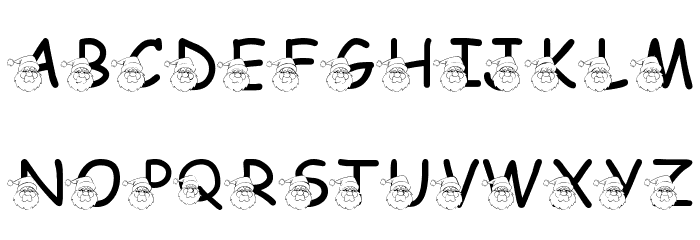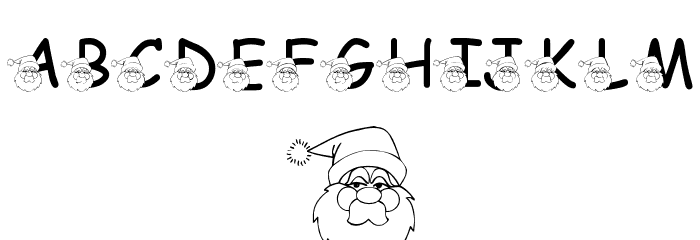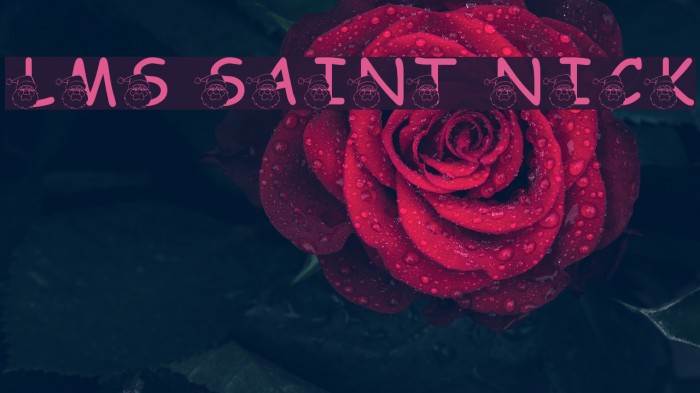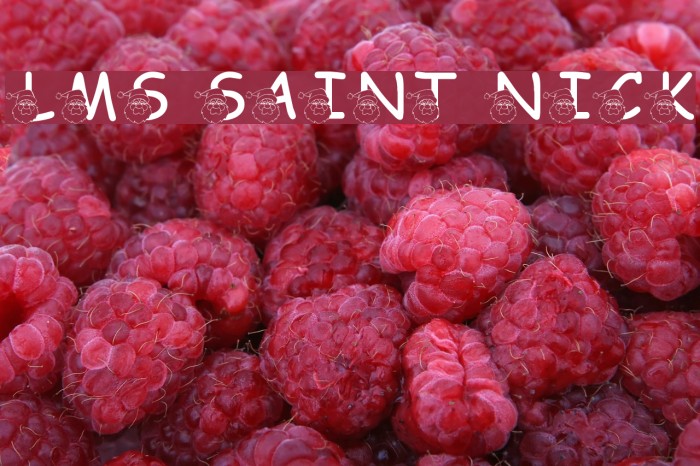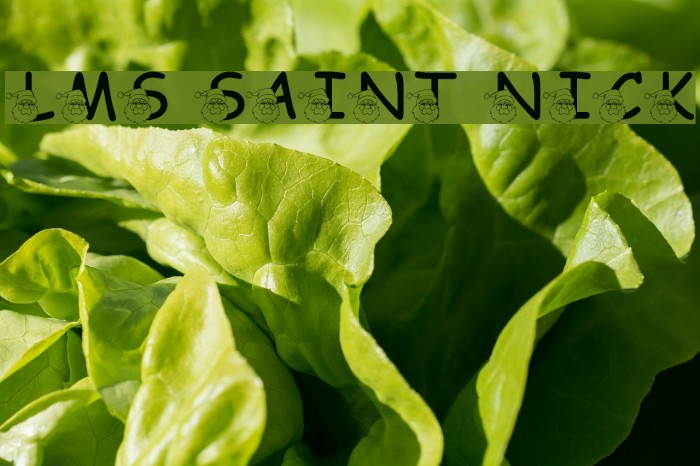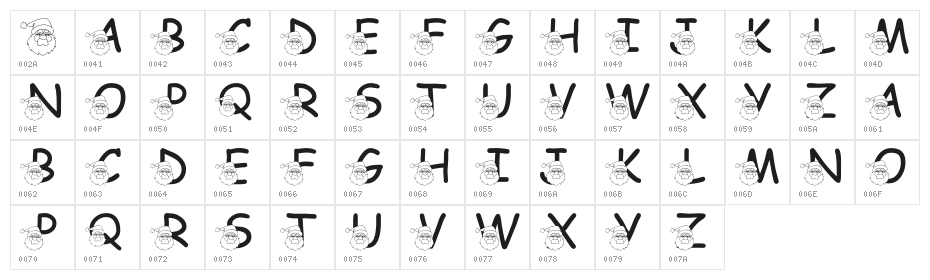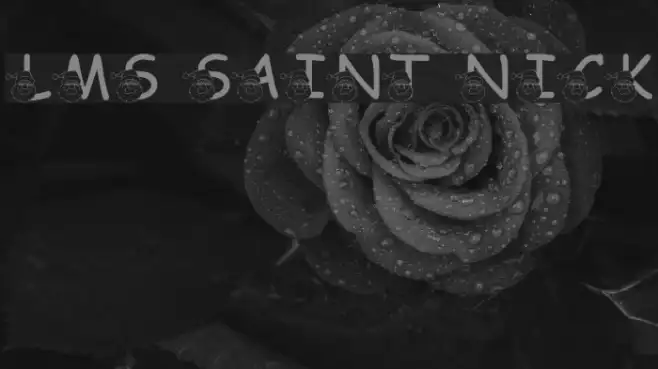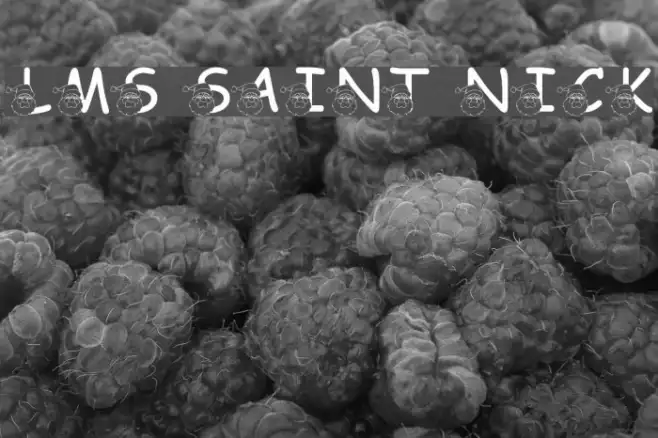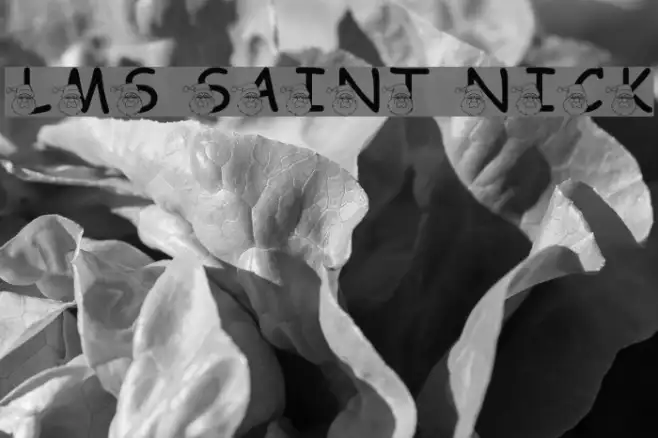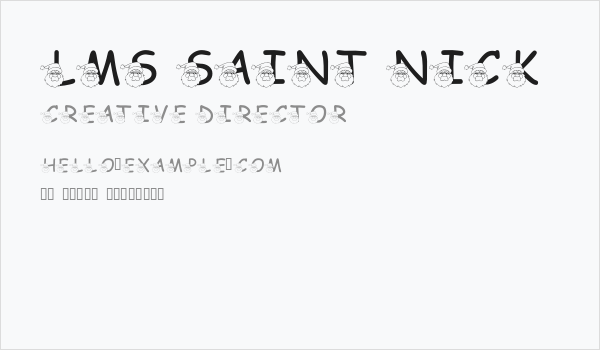
LMS Saint Nick Font
This whimsical font features a playful integration of Santa Claus illustrations between each character, creating a festive and cheerful appearance. The letters are bold and slightly rounded, giving them a friendly and approachable look. The uppercase letters are evenly spaced, maintaining a consistent alignment with the Santa illustrations, which adds a unique decorative element. This font is perfect for holiday-themed projects, capturing the spirit of Christmas with its joyful and lighthearted design.
A festive font with Santa illustrations between bold, rounded letters.
- Proposed Projects: Ideal for holiday cards, festive banners, Christmas event posters, and seasonal advertisements.